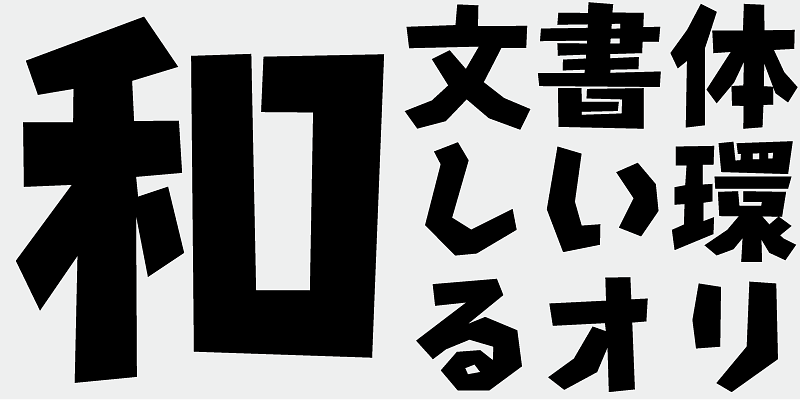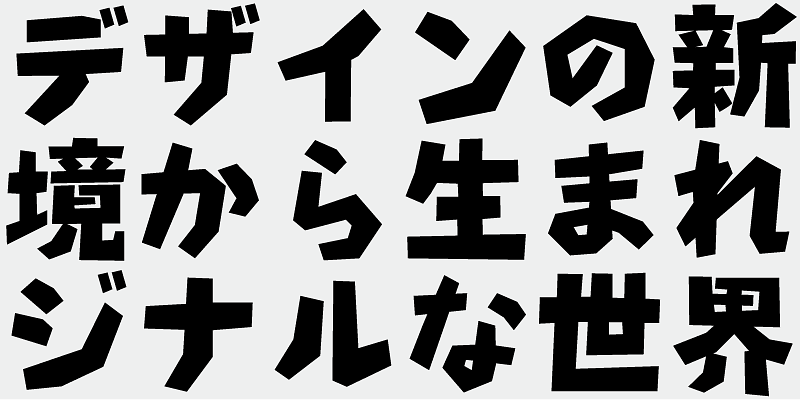
A Japanese gothic typeface with a retro feel.
This font includes the top 1,000 kanji characters selected from usage frequency lists compiled by newspaper companies, publishers, and the National Institute for Japanese Language and Linguistics, plus 206 additional characters such as kana, alphanumerics, and carefully selected symbols and punctuation marks.